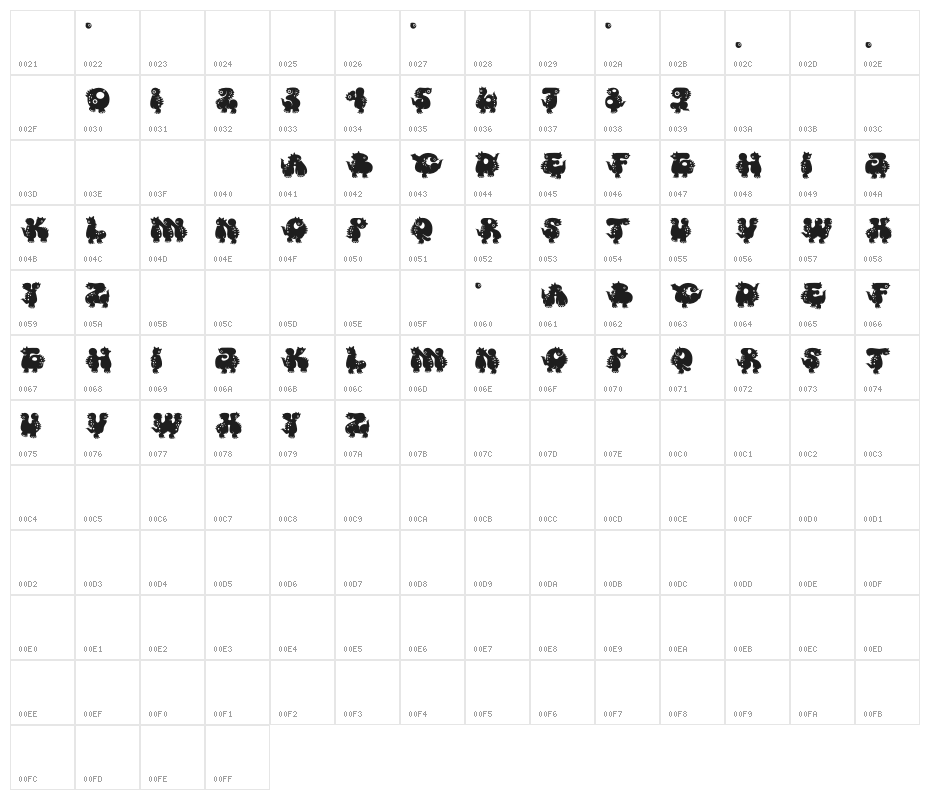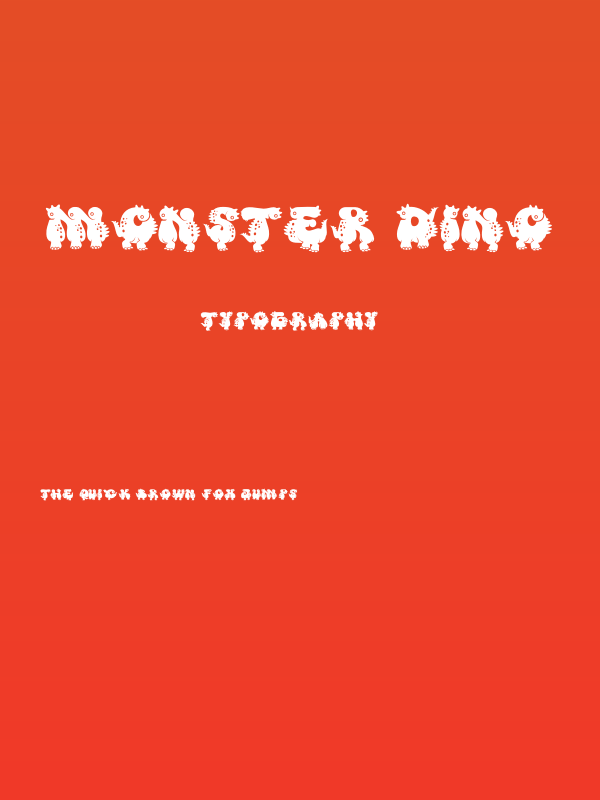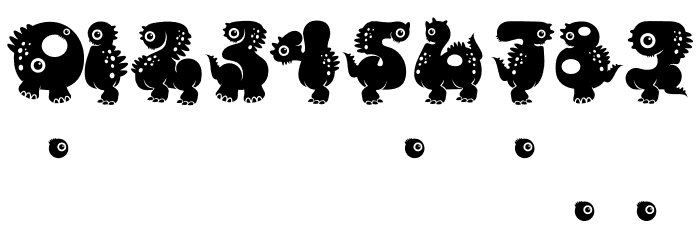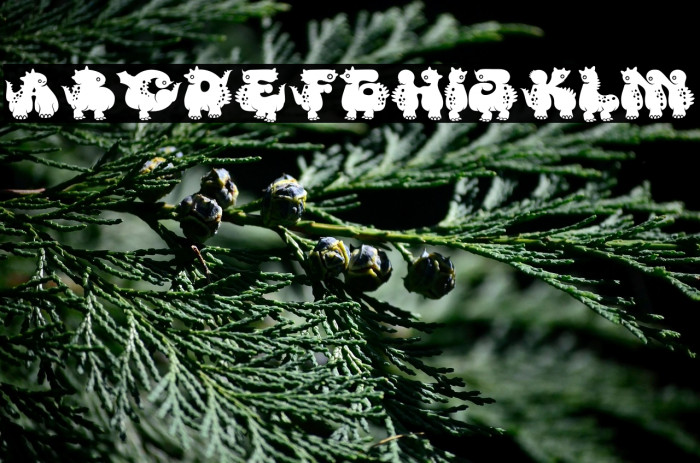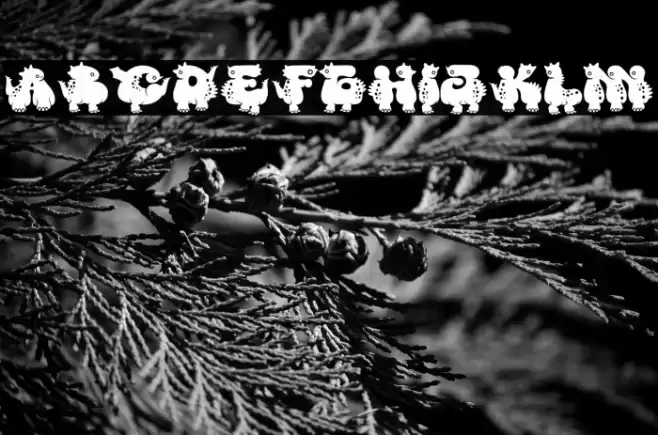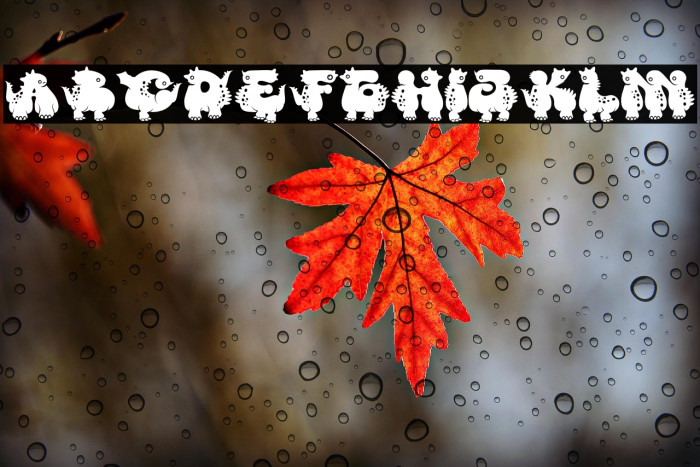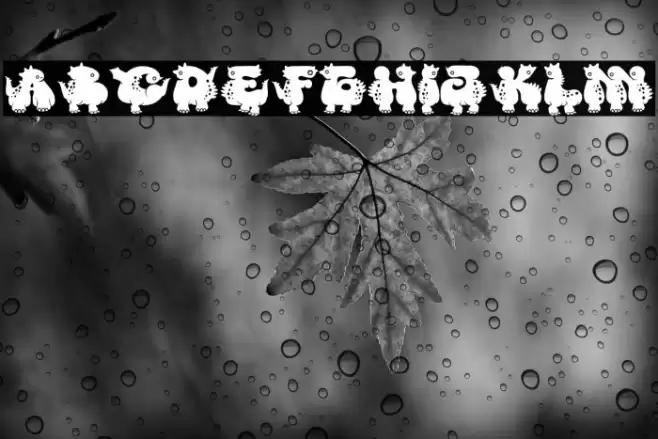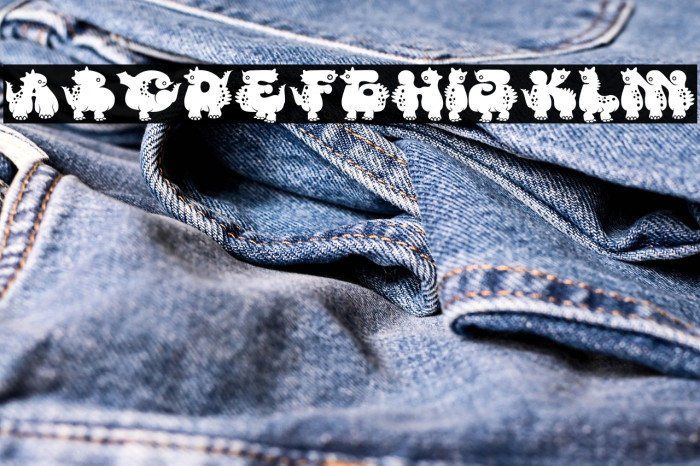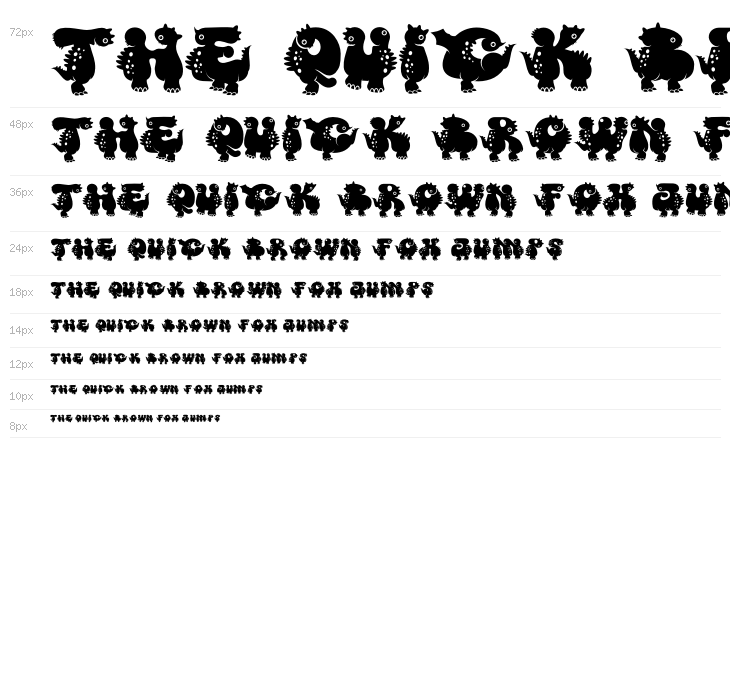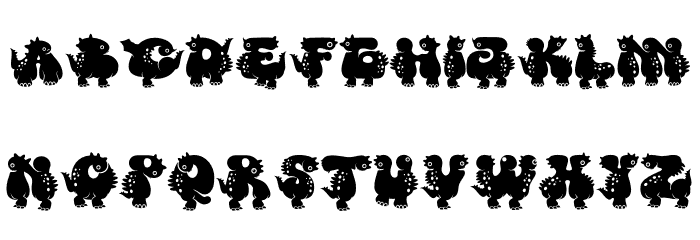
Monster DIno Font
Monster DIno Description
This playful and imaginative font features characters designed as quirky, cartoonish monsters. Each letter and number is uniquely crafted to resemble a different creature, complete with eyes, spikes, and tails, adding a whimsical and fun element to the text. The bold and chunky design ensures high visibility and makes it ideal for capturing attention. The font's distinct style is perfect for projects that require a touch of humor and creativity, such as children's books, playful branding, or themed event invitations.
| Overall Style | Decorative |
| Proposed Projects | Ideal for children's books, playful branding, themed event invitations, and educational materials. |